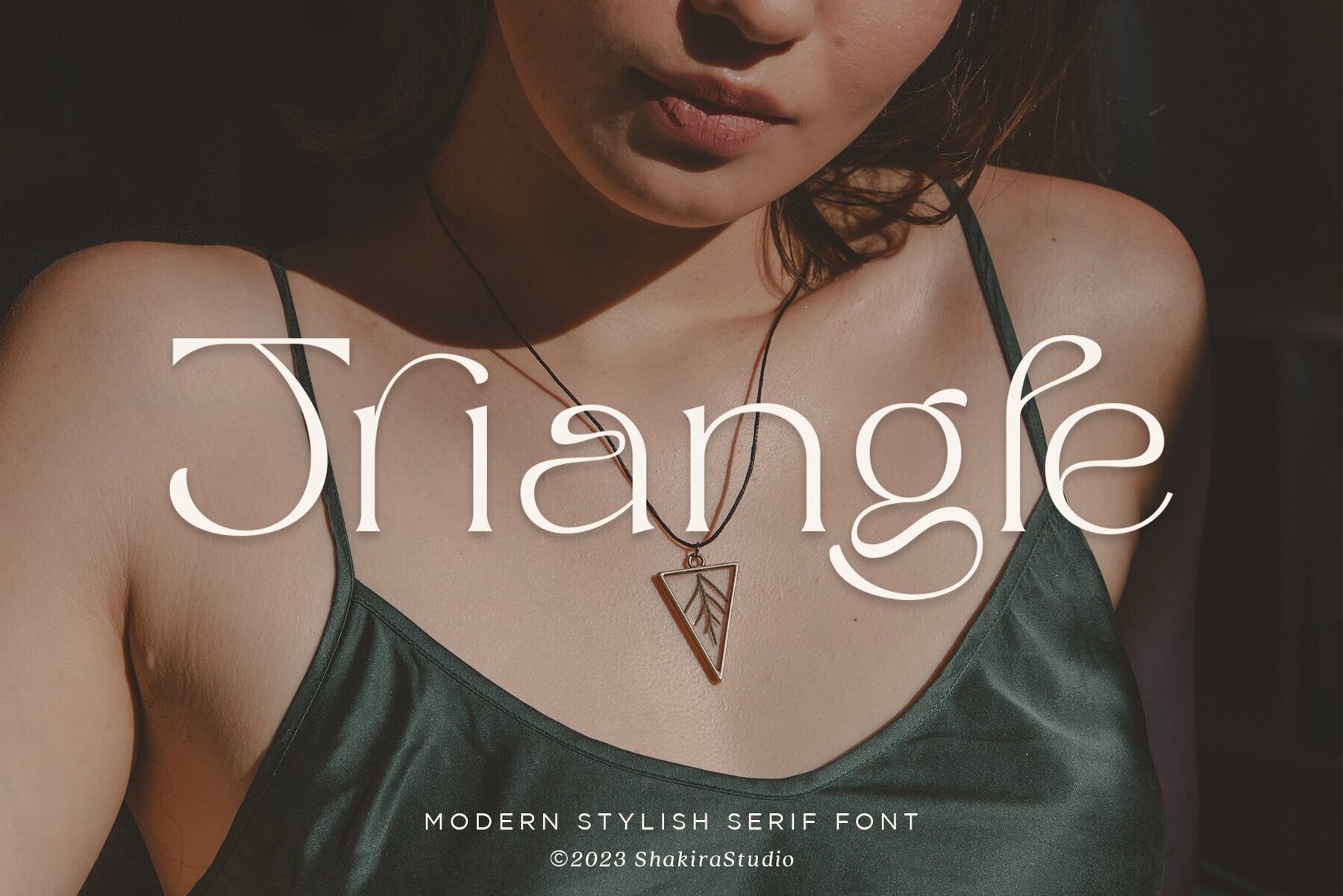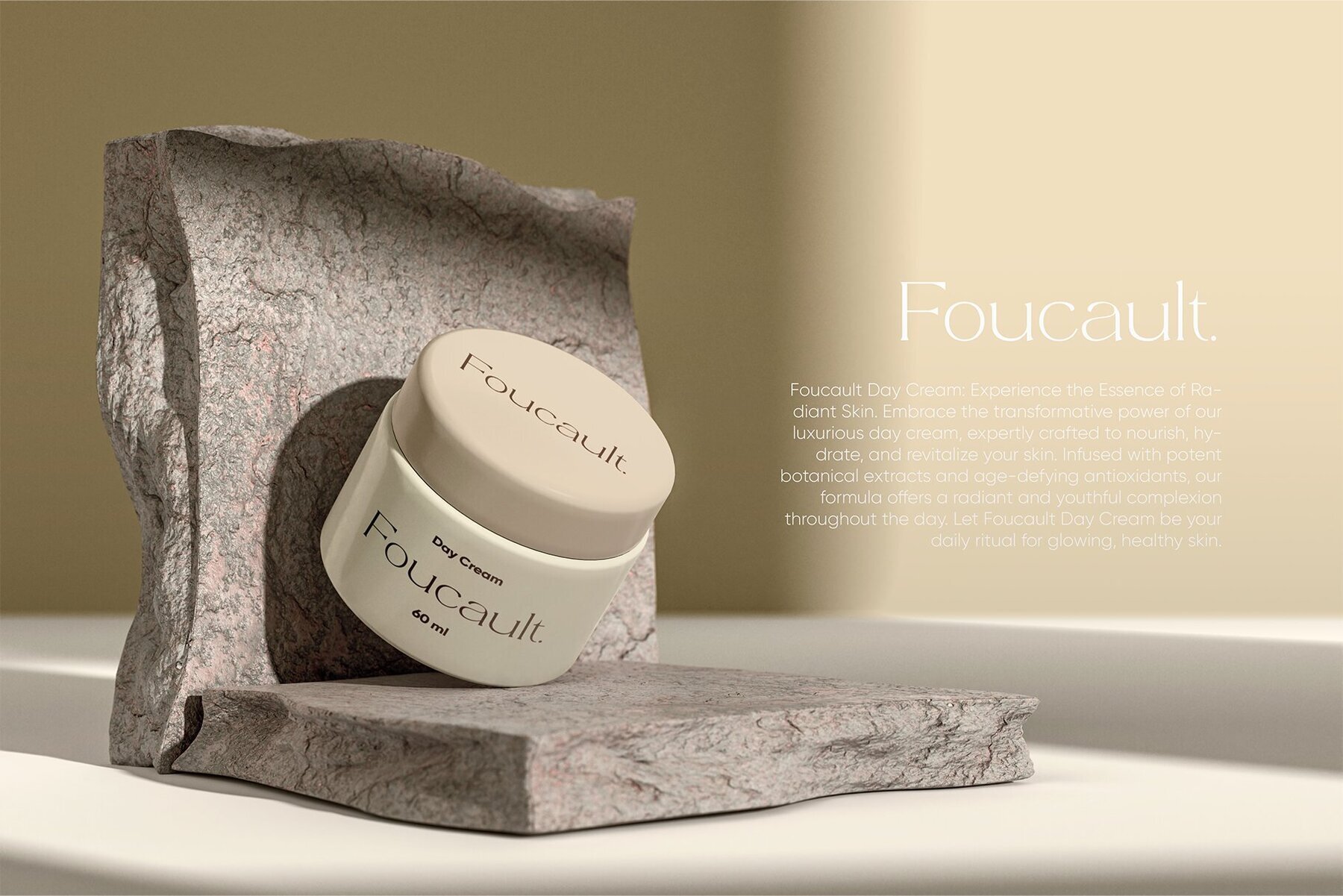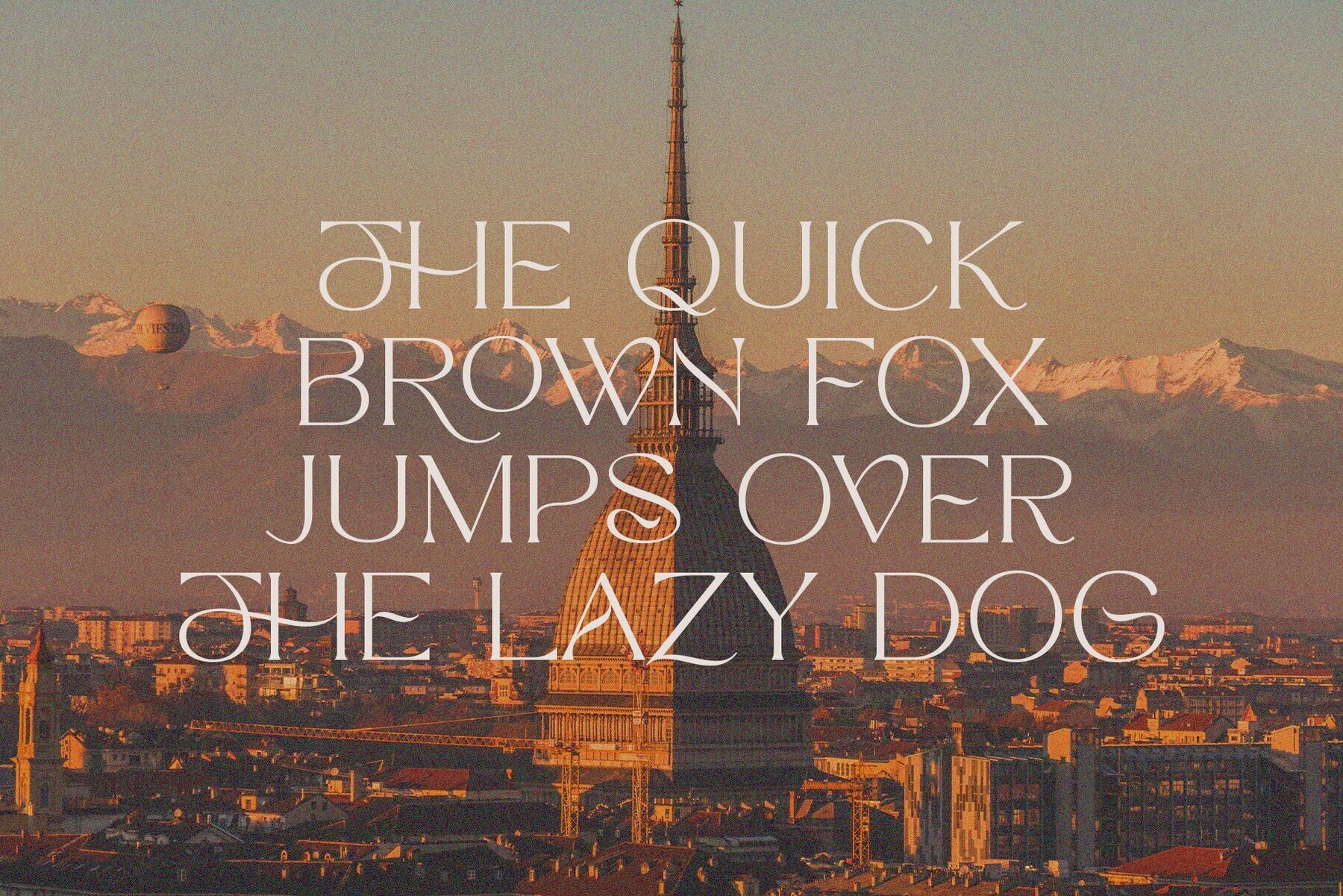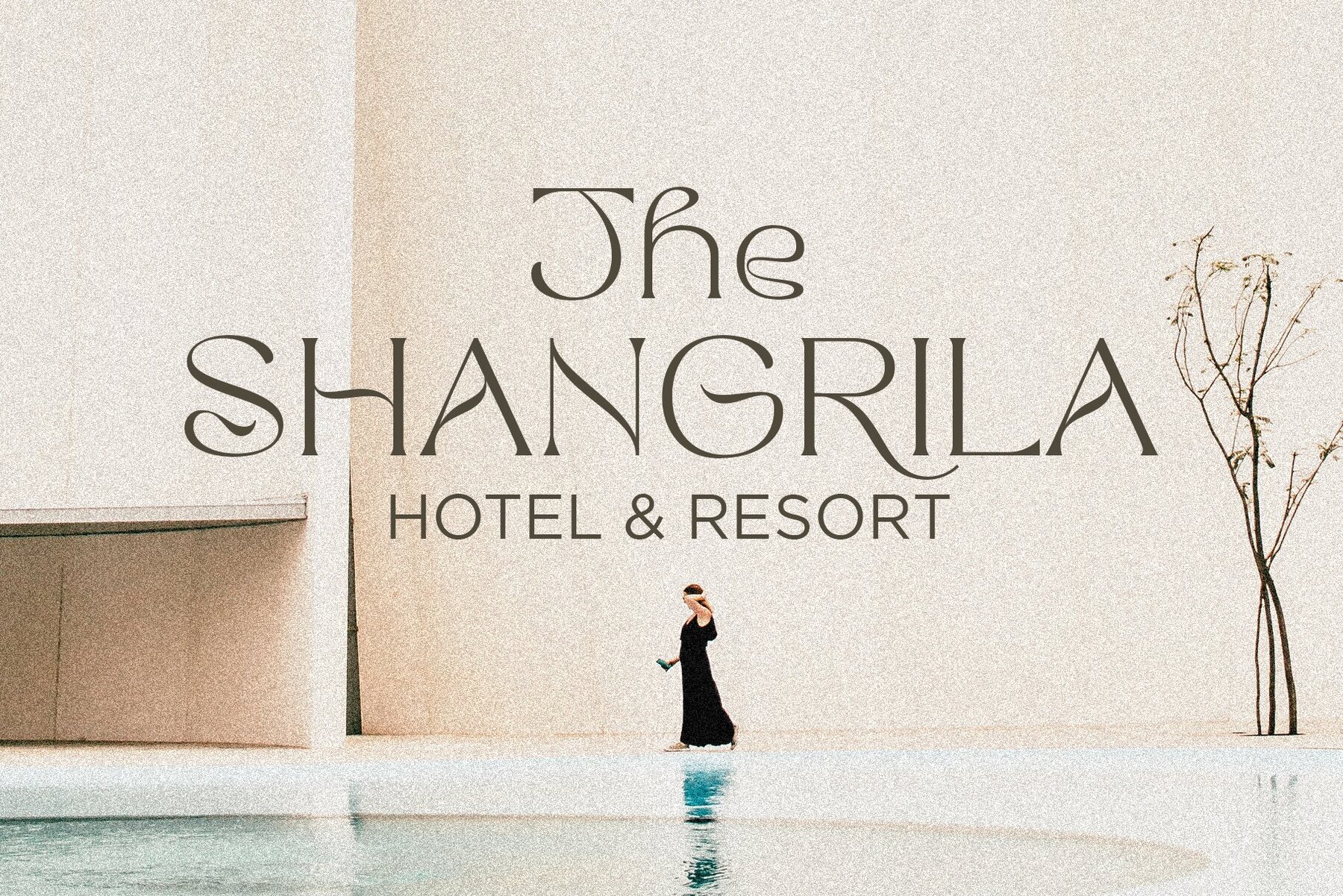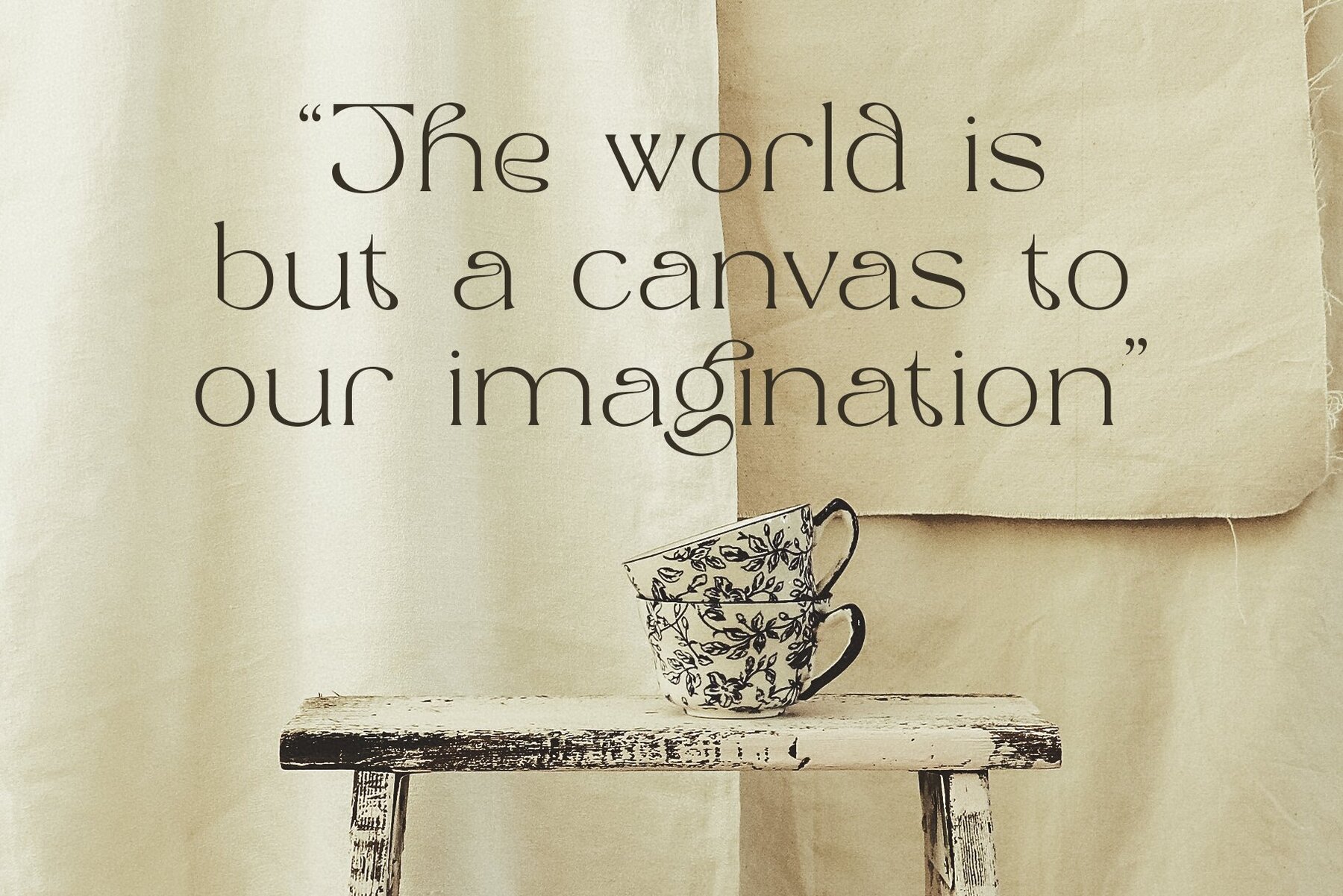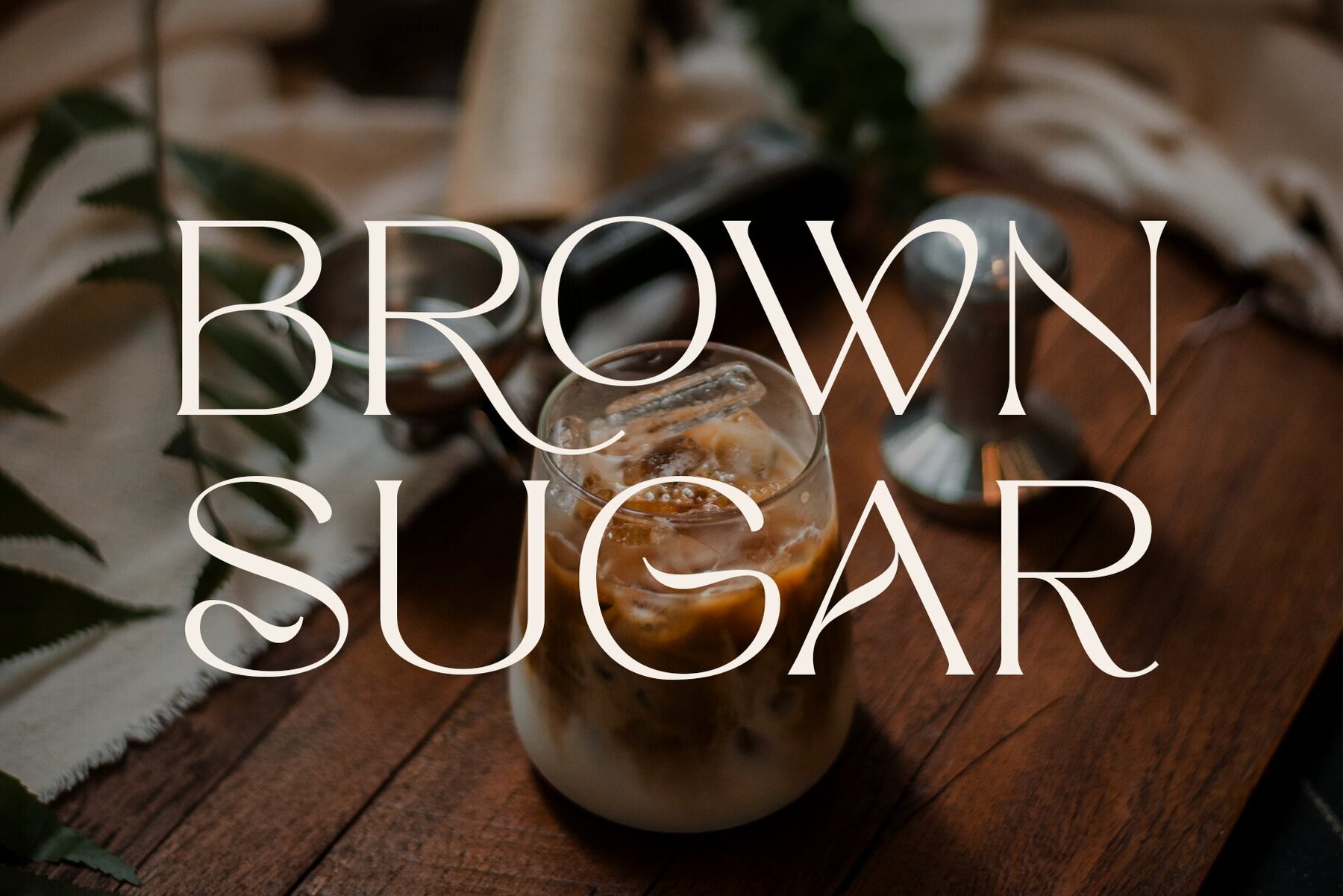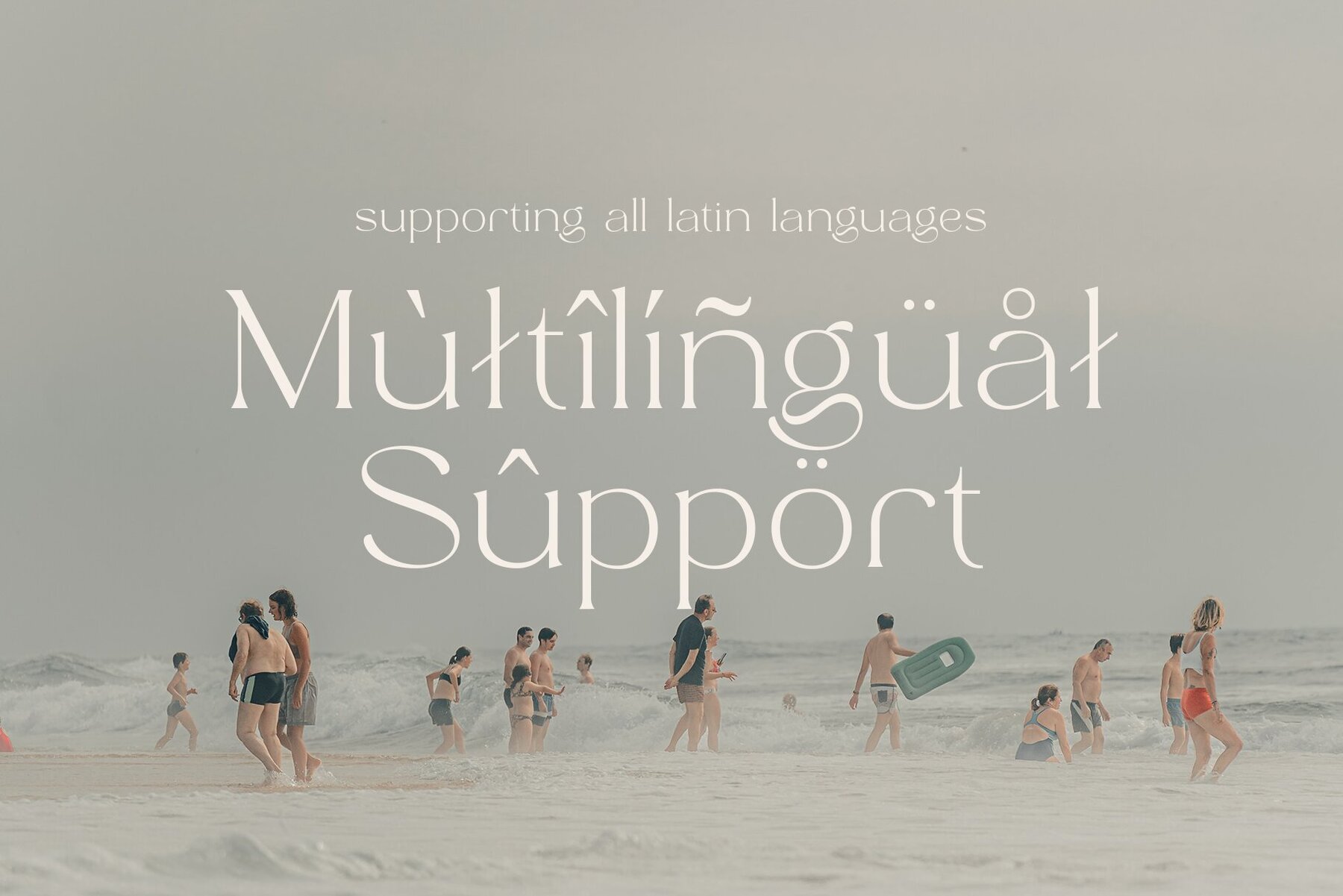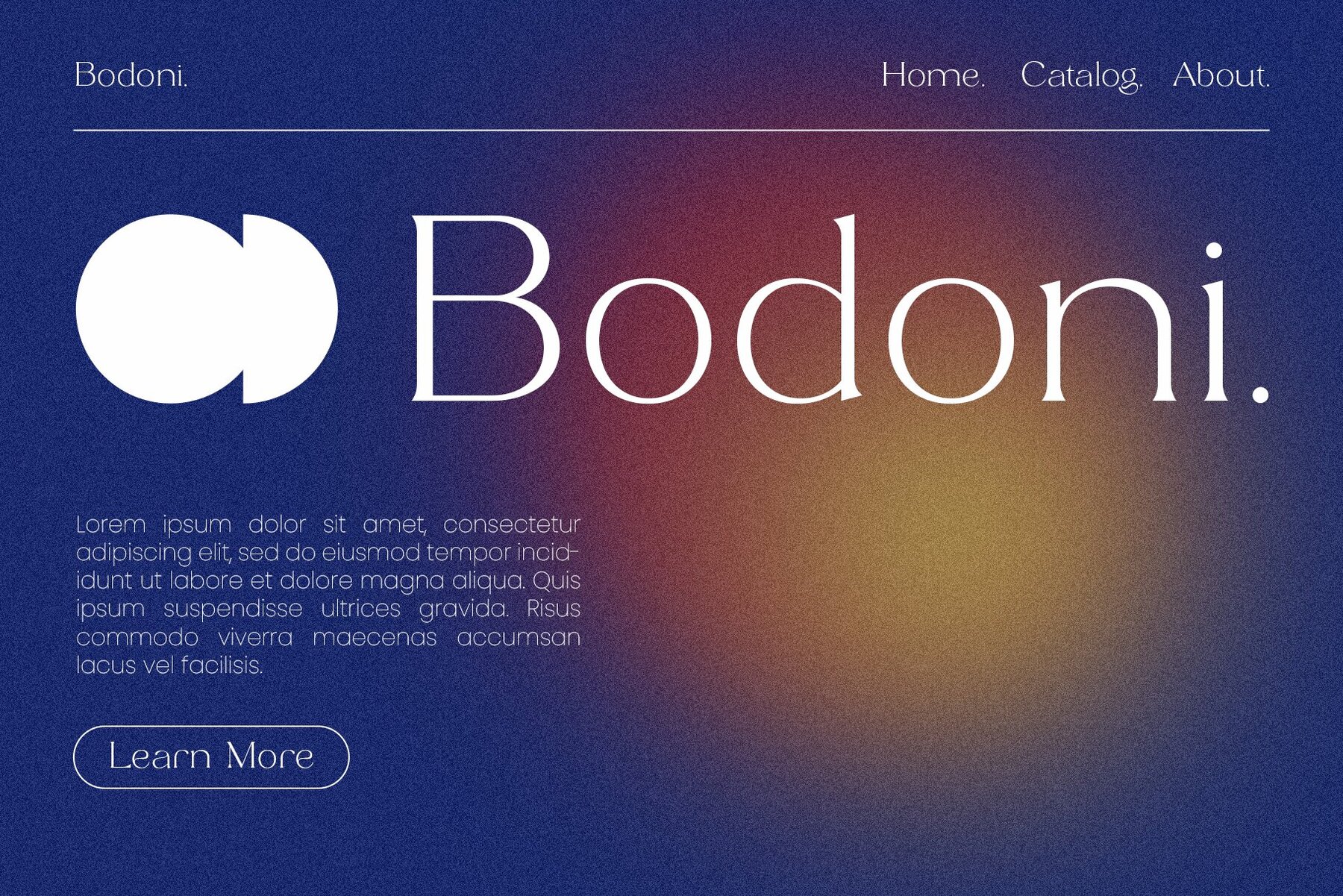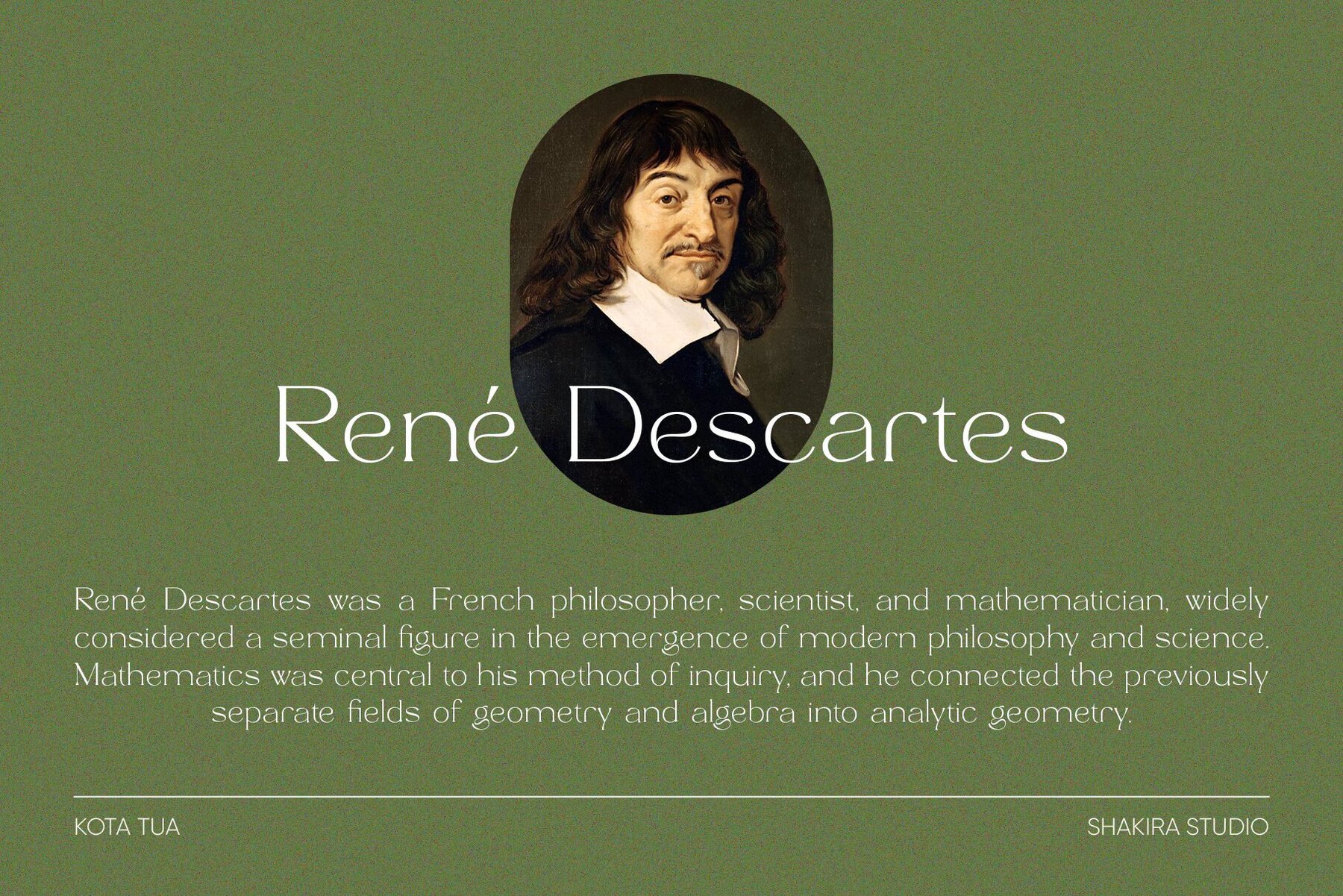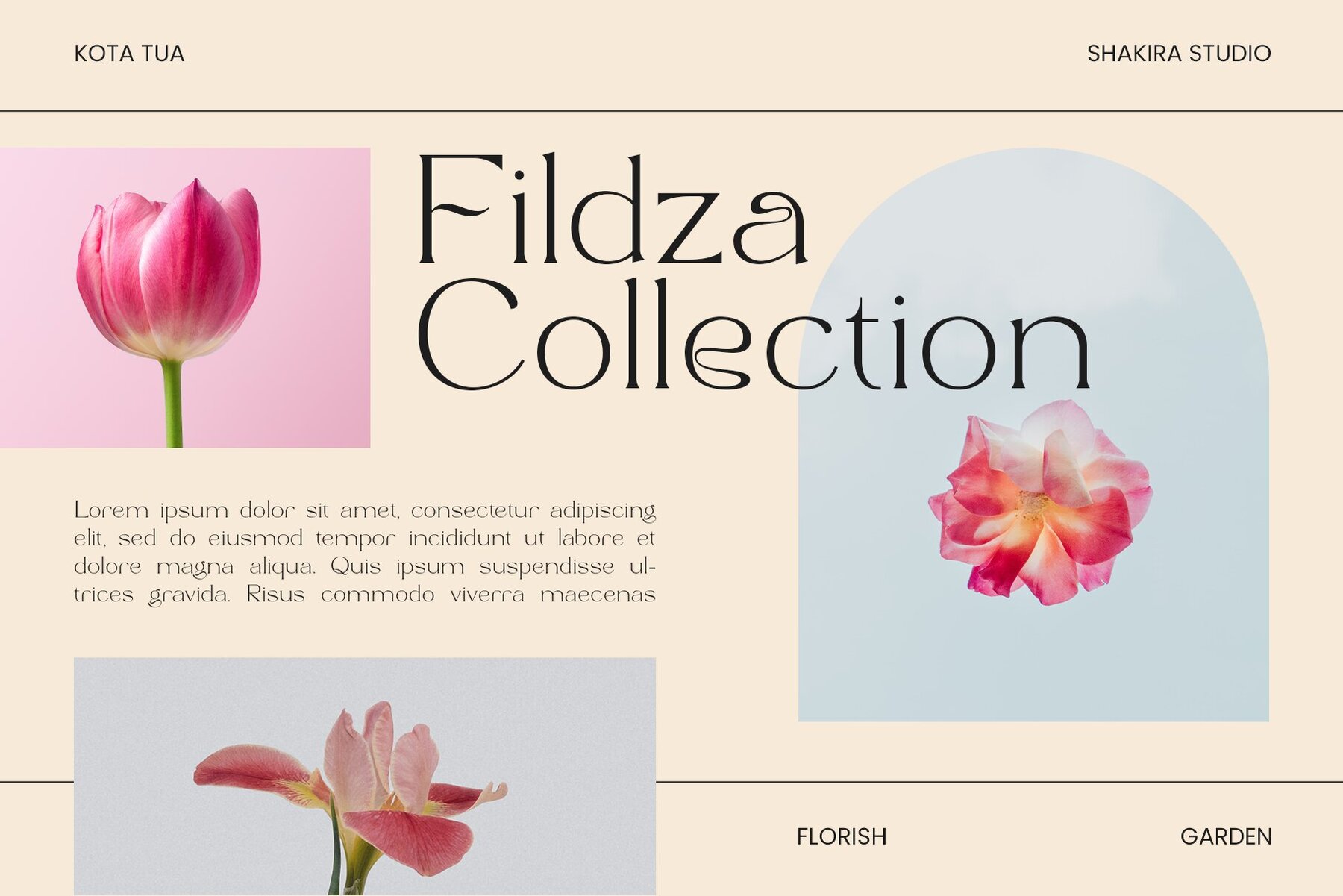
Triangle Font
Introducing Triangle, a font that exemplifies the very essence of modern style within the serif category. This typeface marries classic elegance with contemporary flair, making it an ideal choice for designers seeking sophistication and visual impact in their projects. Triangle boasts meticulously crafted letterforms with a sleek, timeless design. Its serifs, although rooted in tradition, are refined and minimalistic, giving the font a unique and distinctly modern edge. Each character is a testament to precision and elegance. With Triangle, your designs will radiate an air of confidence and style. This versatile font can be employed in a myriad of design applications, from high-end branding and editorial layouts to luxury packaging and sleek websites. Its adaptability is one of its most compelling features, ensuring it can seamlessly blend into any project. Here's what you get: